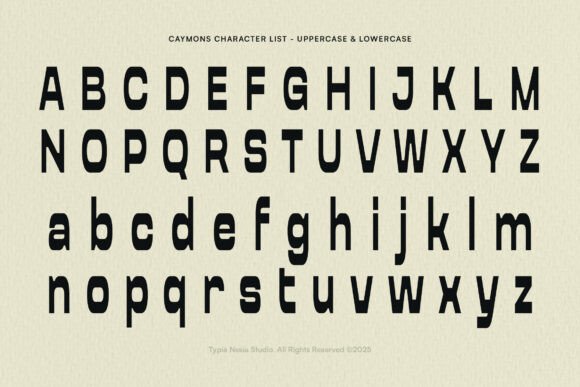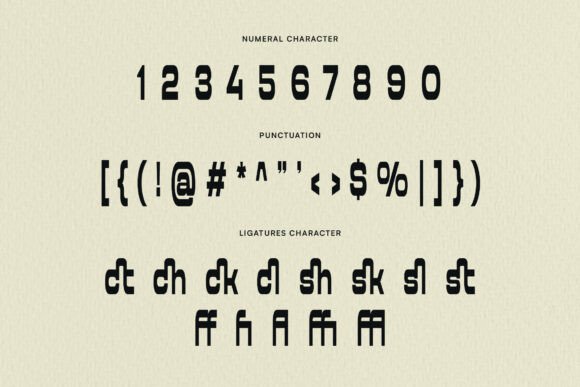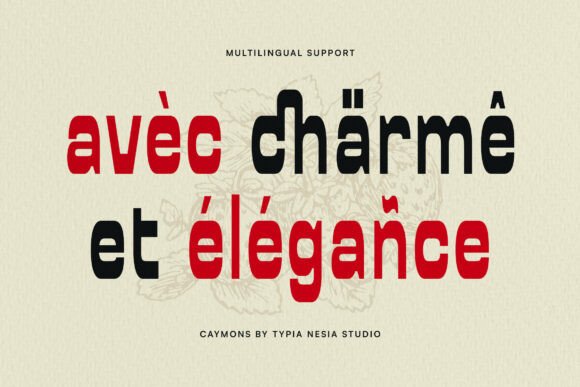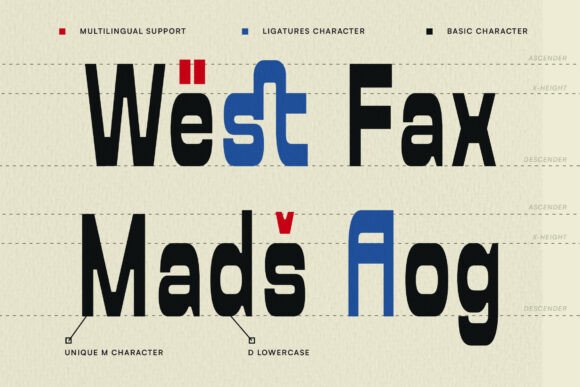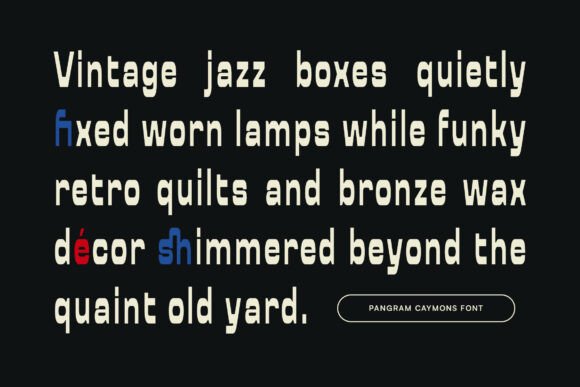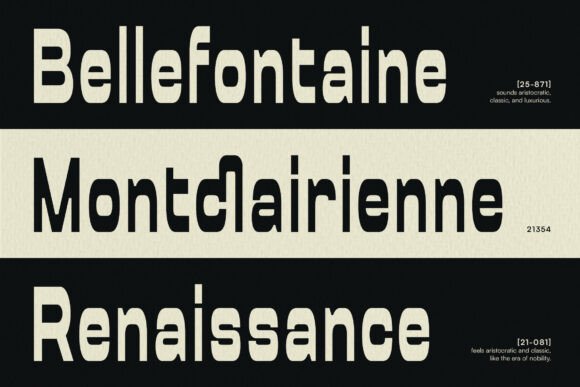
Introducing Caymons Font: A Bold, Condensed Retro Sans Font
Are you looking for a font that can add a touch of nostalgia and modernity to your design projects? Look no further than Caymons Font, a bold, condensed retro sans font that takes inspiration from vintage typography and the energetic design trends of the 80s and 90s.
A Unique Reverse Contrast Style
Caymons features a unique reverse contrast style, which gives it a distinctive and eye-catching appearance. This striking typeface is perfect for logos and badges, posters and large display text, especially for music or urban event branding, web design, and any projects that require a touch of modern and seek a nostalgic edge.
Inspired by Vintage Typography
Caymons Font is inspired by the classic typography of the past, with a modern twist. The font’s bold and condensed style is reminiscent of the iconic fonts of the 80s and 90s, but with a fresh and modern spin. The result is a font that is both nostalgic and contemporary, perfect for designers who want to add a touch of retro flair to their work.
Multilingual Support and Versatility
Caymons Font comes with multilingual support, a full set of uppercase and lowercase characters, numerals, punctuation, and decorative ligatures. This ensures versatility for headlines, titles, and display text, making it perfect for a wide range of design projects. Whether you’re working on a logo, poster, or website, Caymons Font has got you covered.
Caymons Font is perfect for designers and crafters who want to add a touch of personality to their work. The font’s bold and condensed style makes it perfect for creating eye-catching headlines and titles, while its unique reverse contrast style adds a touch of sophistication and elegance.
Use Cases for Caymons Font
Caymons Font is perfect for a wide range of design projects, including:
- Logos and badges: The font’s bold and condensed style makes it perfect for creating eye-catching logos and badges.
- Posters and large display text: Caymons Font is perfect for creating striking posters and large display text that will grab attention.
- Music or urban event branding: The font’s unique reverse contrast style and bold style make it perfect for music or urban event branding.
- Web design: Caymons Font is perfect for web design, adding a touch of personality and style to your website.
Why Choose Caymons Font?
There are many reasons why you should choose Caymons Font for your design projects. Here are just a few:
- Unique and eye-catching design: Caymons Font features a unique reverse contrast style that will make your design stand out.
- Multilingual support: The font comes with multilingual support, making it perfect for a wide range of design projects.
- Versatility: Caymons Font is perfect for a wide range of design projects, from logos and badges to posters and large display text.
- Easy to use: The font comes with a full set of uppercase and lowercase characters, numerals, punctuation, and decorative ligatures, making it easy to use.